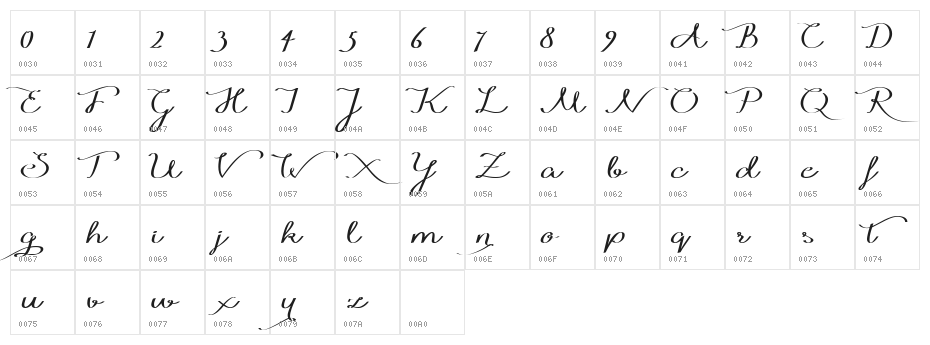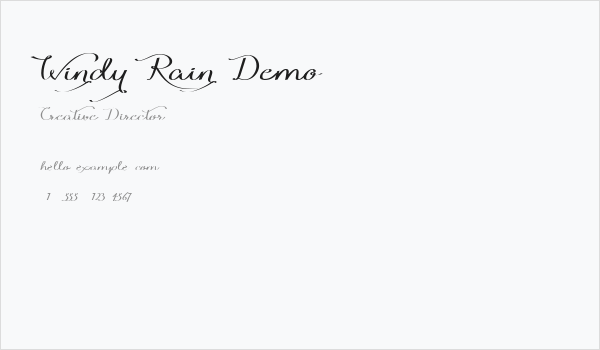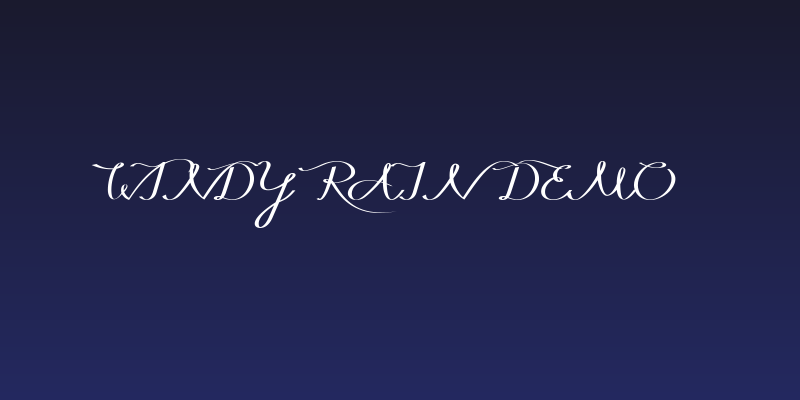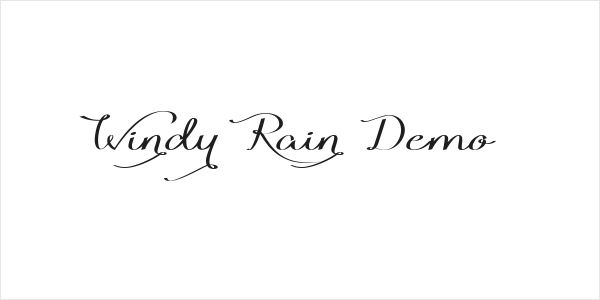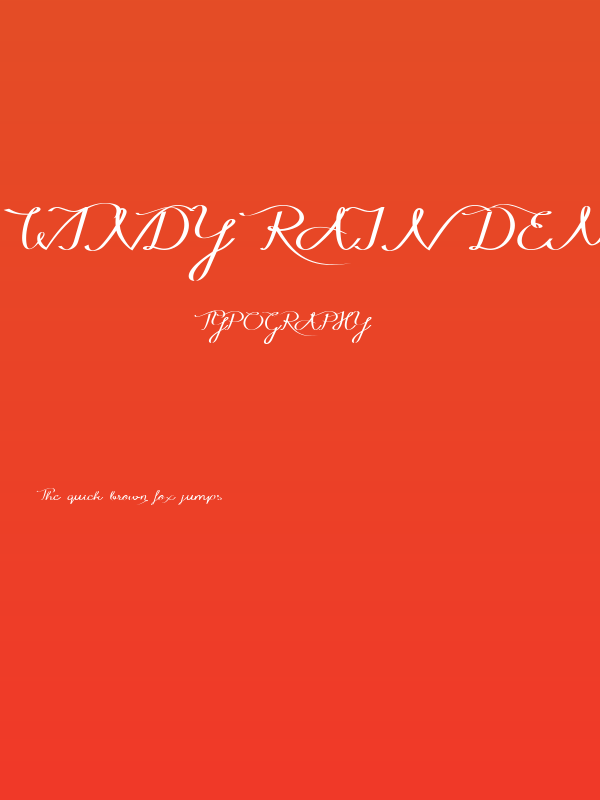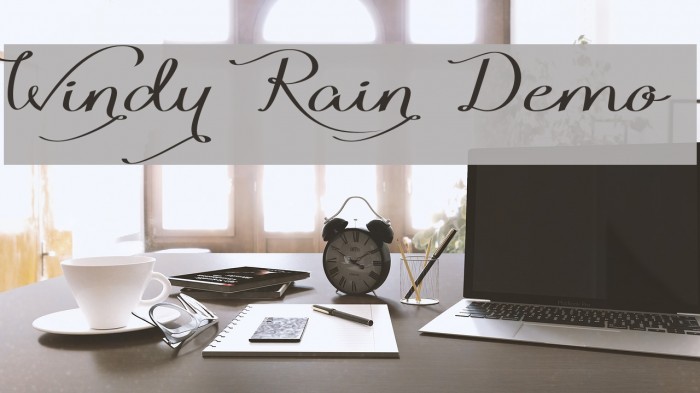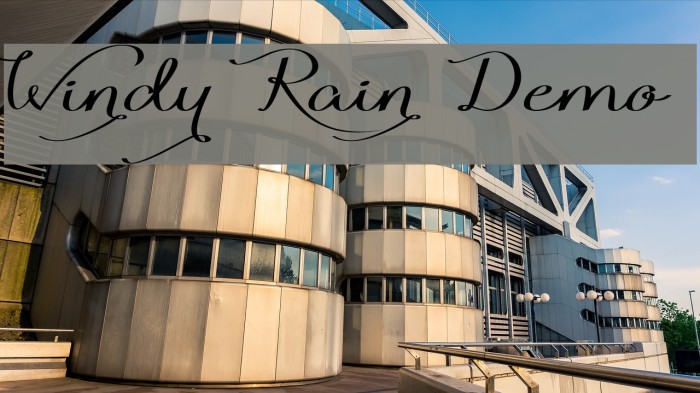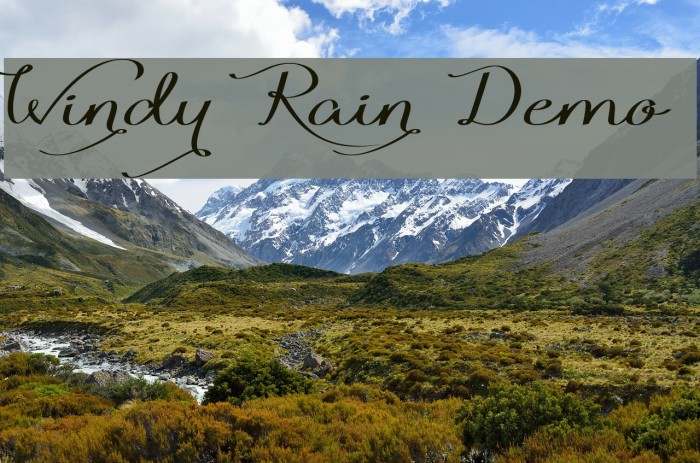
Windy Rain Demo Font
Windy Rain Demo Description
This elegant script font features flowing, cursive letters with a sophisticated flair. The uppercase letters are adorned with intricate swashes and flourishes, giving them a decorative and artistic appearance. The lowercase letters maintain a smooth and connected style, enhancing the font's overall fluidity. The numerals are designed with a slight slant, complementing the cursive nature of the alphabet. This font is perfect for projects that require a touch of elegance and sophistication, such as wedding invitations, formal event programs, or high-end branding materials. The font's graceful curves and stylish details make it stand out as a decorative choice.
| Use Case | Logos, Headlines |
| Proposed Projects | Ideal for wedding invitations, formal event programs, and high-end branding materials. |